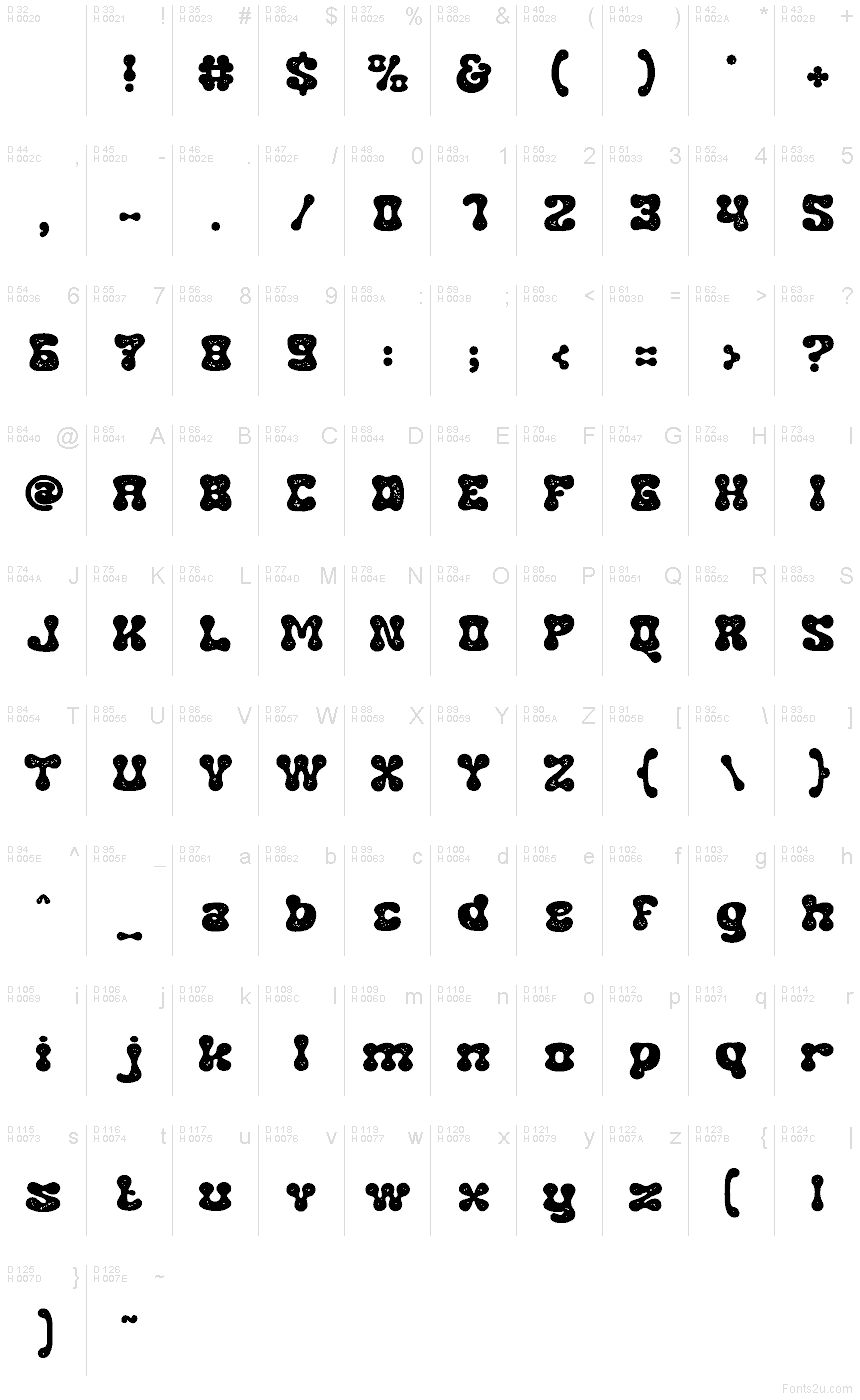
Funky Sign Texture
Funky Sign font by PutraCetol Studio is a free display font with an eroded, groovy style and retro influence. Having a bold weight and expanded width, the fonts have rounded shapes, textured corners, and a slight inclination. Among others, it conveys informality and an overall exaggerated eyes-catching presence.
Use Funky Sign for posters, advertisements, t-shirts prints, music album design covers, packages branding of snacks or beverages; invitation cards to parties; websites dedicated to cartoons or children’s topics; graffiti-like illustrations; books for young audiences etc.